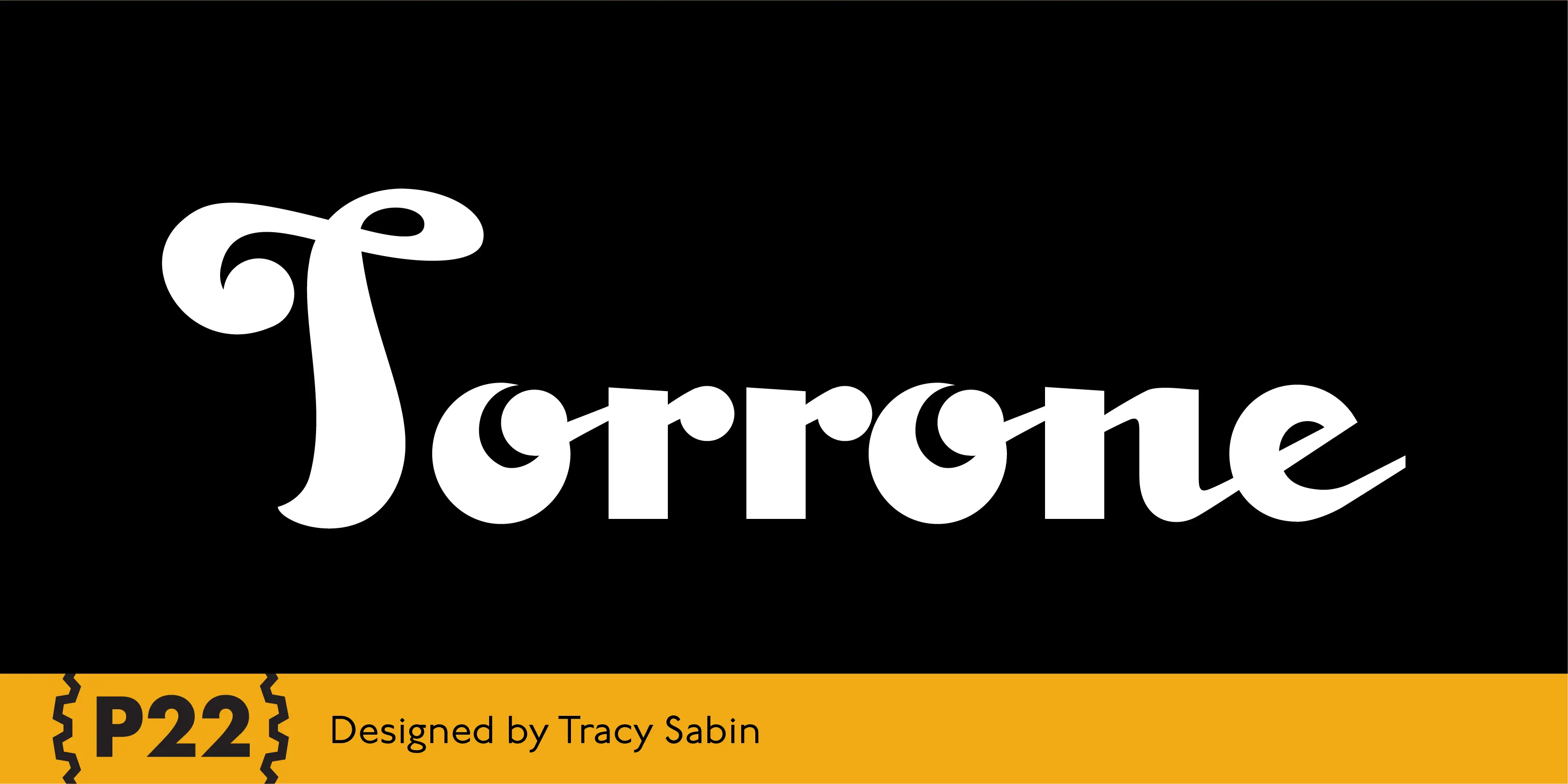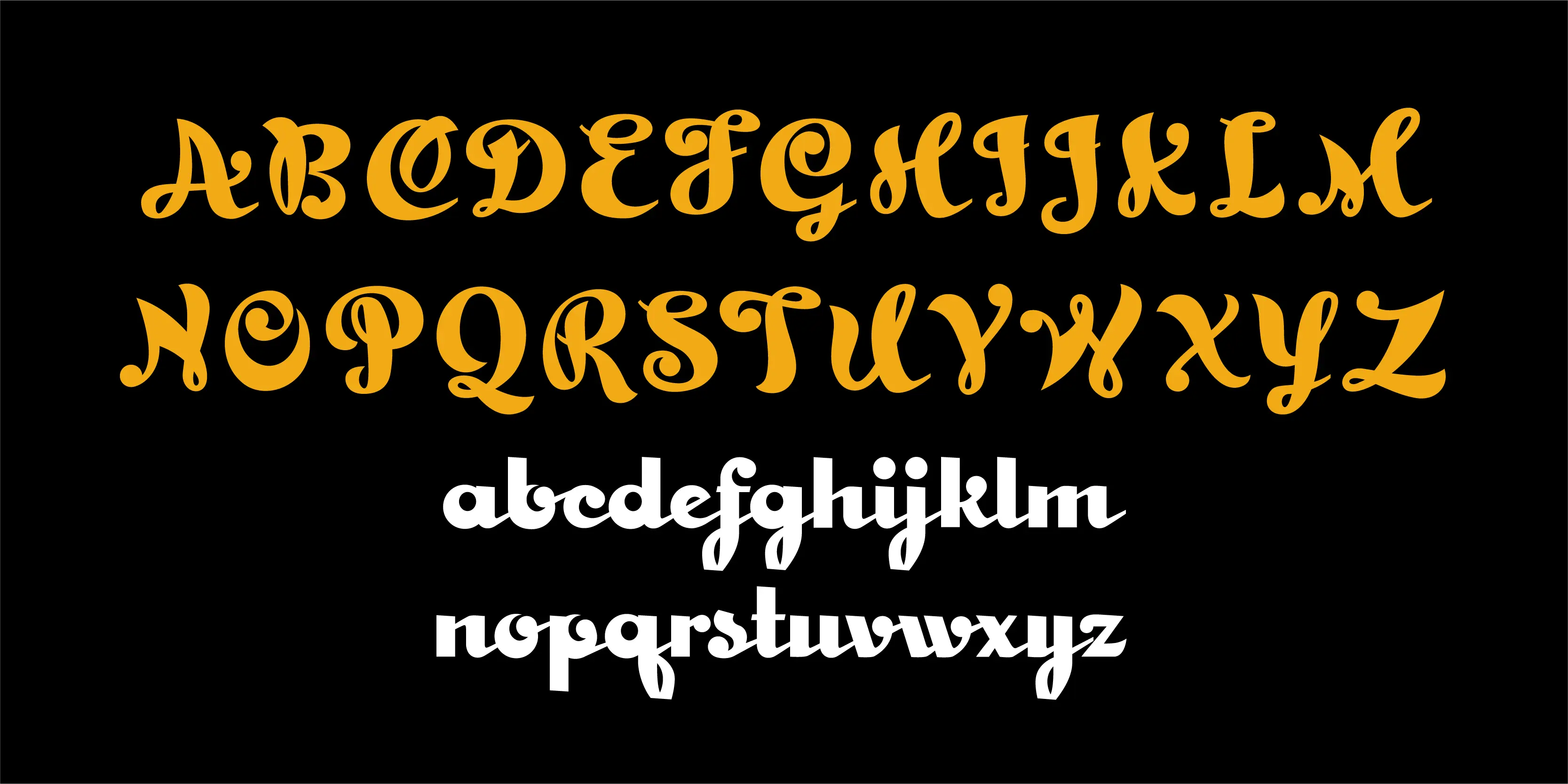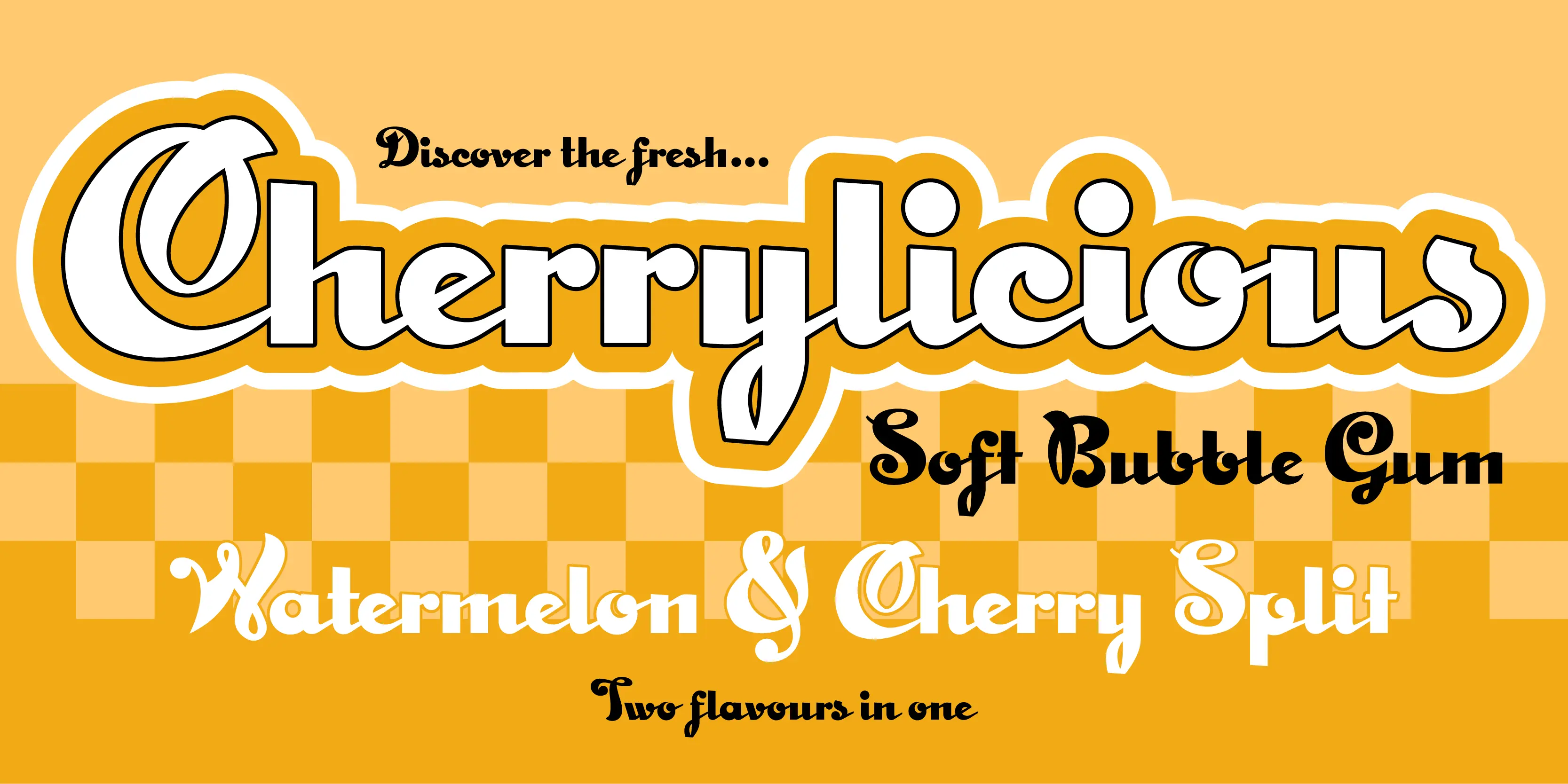
Torrone Font
Torrone
Precursors to Torrone are found among the type experiments of Art Deco artists in 1930’s Europe. Fonts of this type with chunky, geometry-driven lower case letters combined with somewhat flamboyant, brush-influenced upper case can be found in the logotypes for Mignon Chocolate Factory in Germany and Baci bon-bons still in use today by Italy’s Perugina Candies. Torrone includes alternate lower case characters and full Central European glyph sets with over 550 characters included!
- Czech
- Latvian
- Polish
- Slovak
- Common Ligatures
- Fractions
- Ordinal Numerals
- Stylistic Alternates
- Stylistic Sets
- Subscript
- Superscript